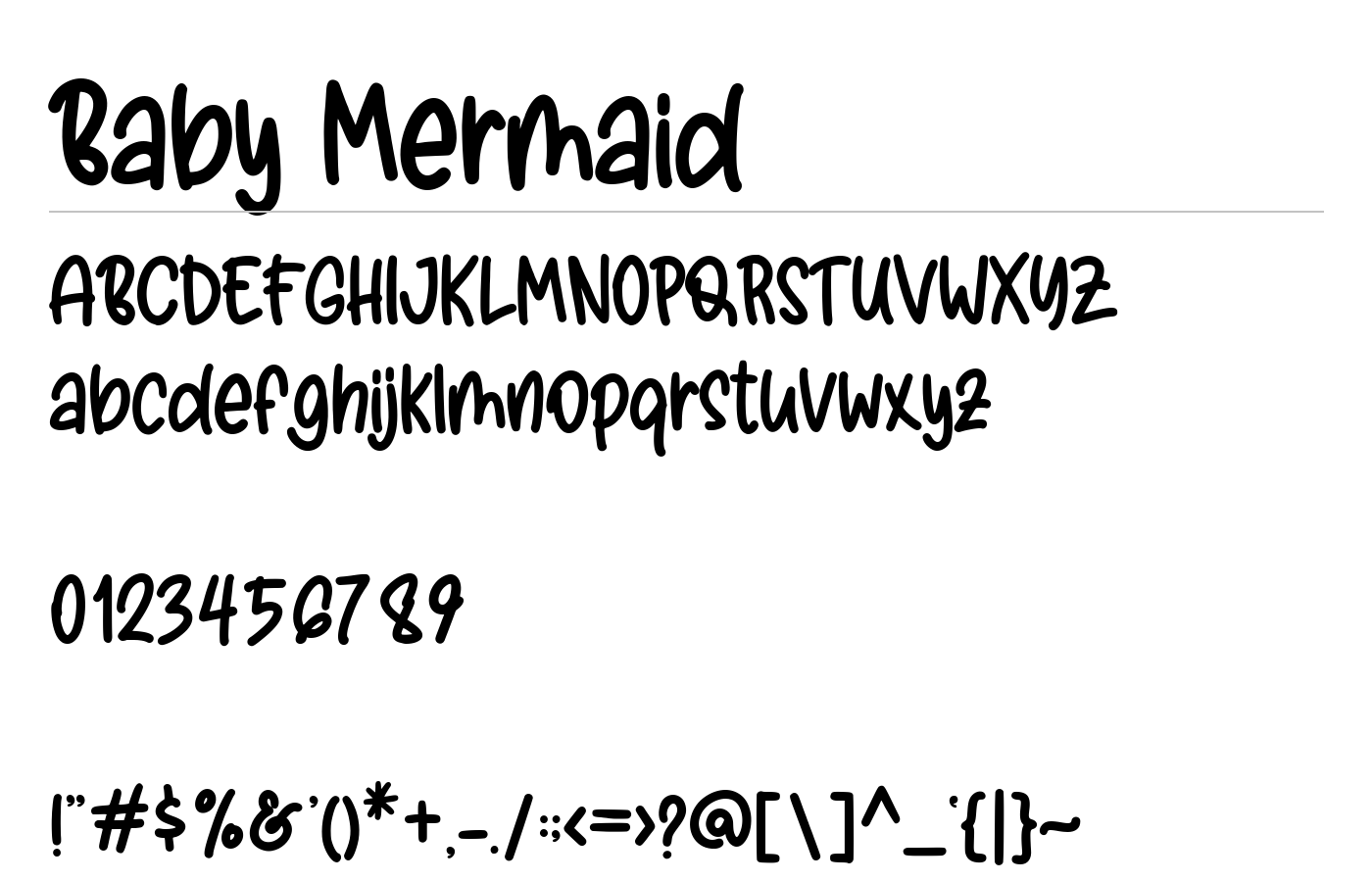
Baby Mermaid is a playful, casual handwritten sans serif font with a friendly, rounded appearance and a slightly uneven, organic stroke that gives it a youthful and approachable vibe. Its moderate weight and spacious letterforms make it great for informal designs like children's books, fun branding, and whimsical headlines where personality and warmth are key. This font works well when you want to convey creativity and a lighthearted mood without sacrificing readability.
Baby Mermaid Font
About Baby Mermaid Font